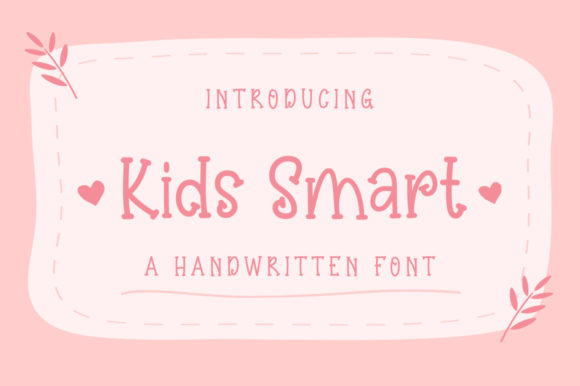
Immerse yourself in a world of joyous creativity with Kids Smart Font, the ultimate font family that captures the essence of childhood wonder. Handcrafted by the talented Nirmala Creative, this whimsical script font exudes a playful charm that will captivate hearts of all ages.
Indulge in the delightful curves and elegant strokes of Kids Smart Font, a masterpiece designed to evoke a sense of celebration and cheerfulness. Its endearing personality shines through in every letter, making it the perfect choice for birthday invitations, thank-you cards, and any occasion that calls for a touch of whimsy.
Unleash your imagination and create designs that transport you to a realm of enchantment. Kids Smart Font's versatility knows no bounds, allowing you to craft logos, business cards, and quotes that radiate a unique and eye-catching appeal. Its ability to transform ordinary words into works of art makes it an indispensable tool for designers and creatives alike.
Embrace the vibrant energy of Kids Smart Font and watch your designs come alive with personality. Let your creativity soar as you explore the endless possibilities that await you with this remarkable font family.